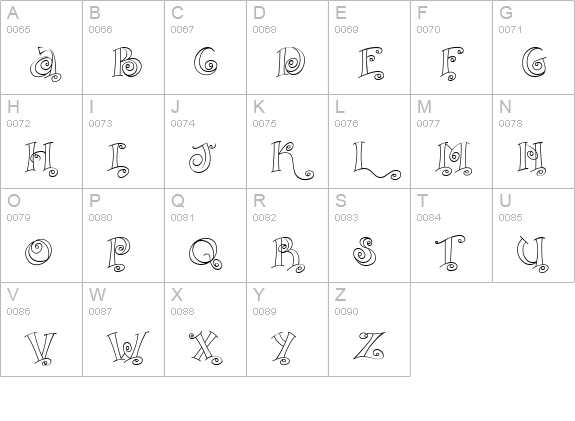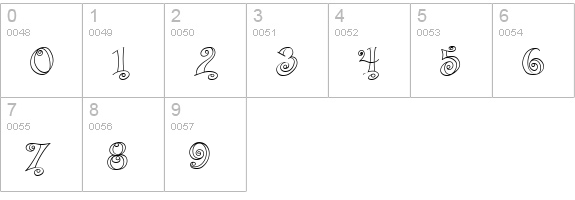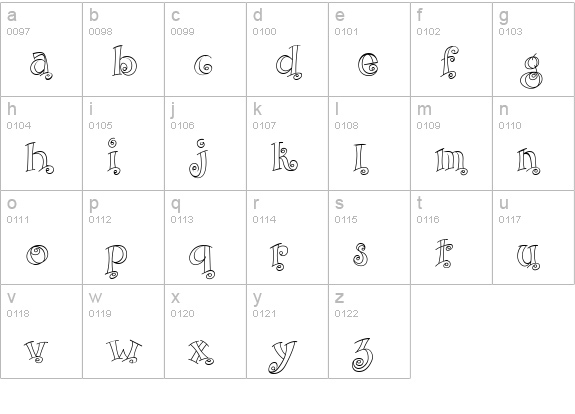
CK Celebration Font Details
Introducing CK Celebration font, a joyful and festive typeface that exudes a sense of happiness and excitement. This playful font is perfect for adding a touch of celebration to your projects, whether it's invitations, greeting cards, posters, or social media graphics. With its whimsical and charming design, CK Celebration font is sure to bring a smile to anyone who sees it. The best part? CK Celebration font is completely free to download at FontsMarket.com. That's right, you can add this delightful font to your collection without spending a penny. So why wait? Spread the joy and cheer with CK Celebration font today!